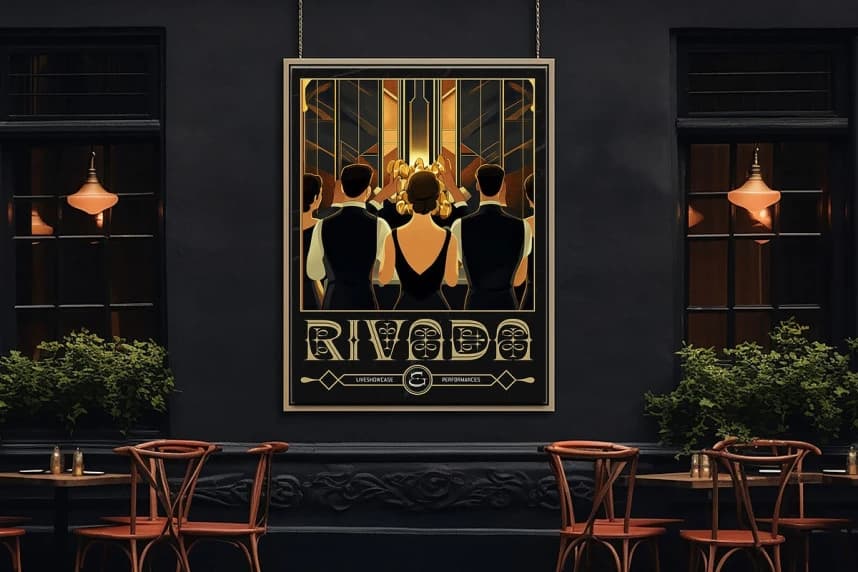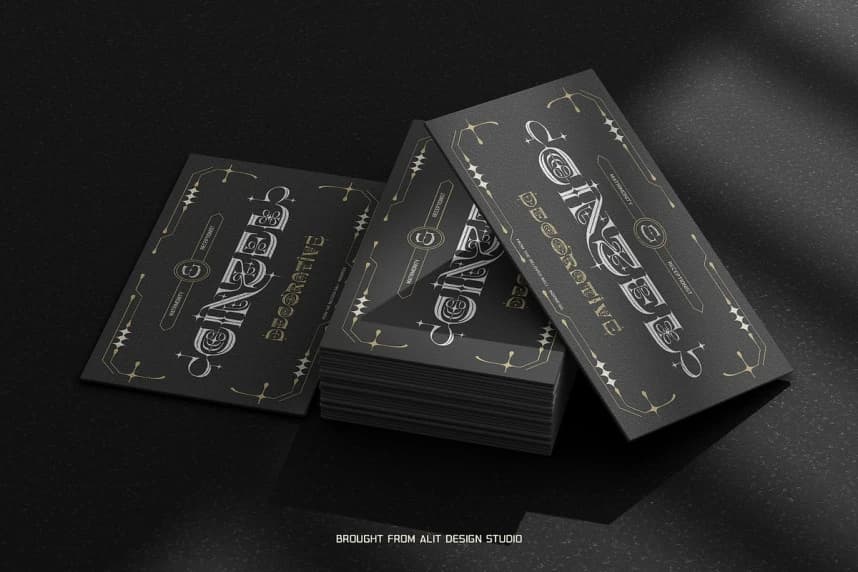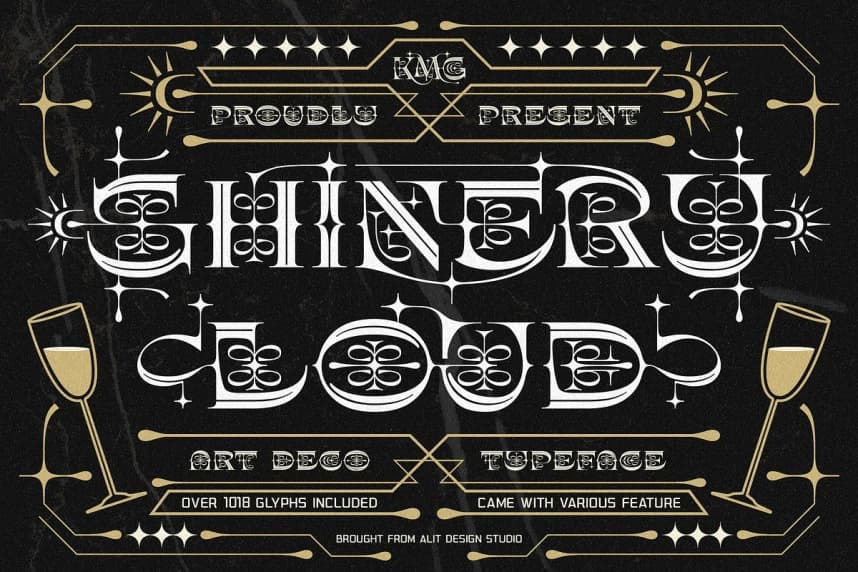
Shinery Loud Font
Shinery Loud Font is a premium Art Deco display font (TTF) by Alit Design Studio. Perfect for bold headlines, posters, branding, invitations, and retro-inspired designs.
Overview
Shinery Loud Font is a premium Art Deco display typeface by Alit Design Studio. Inspired by roaring 1920s architecture, it blends geometric precision with opulent styling to create bold, stylish headlines.
Ideal uses
Use for headlines, posters, branding, invitations, magazine covers, signage mockups, social visuals, and other display typography projects that embrace 1920s glamour.